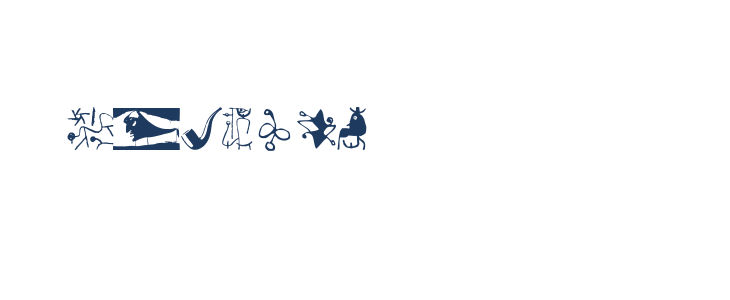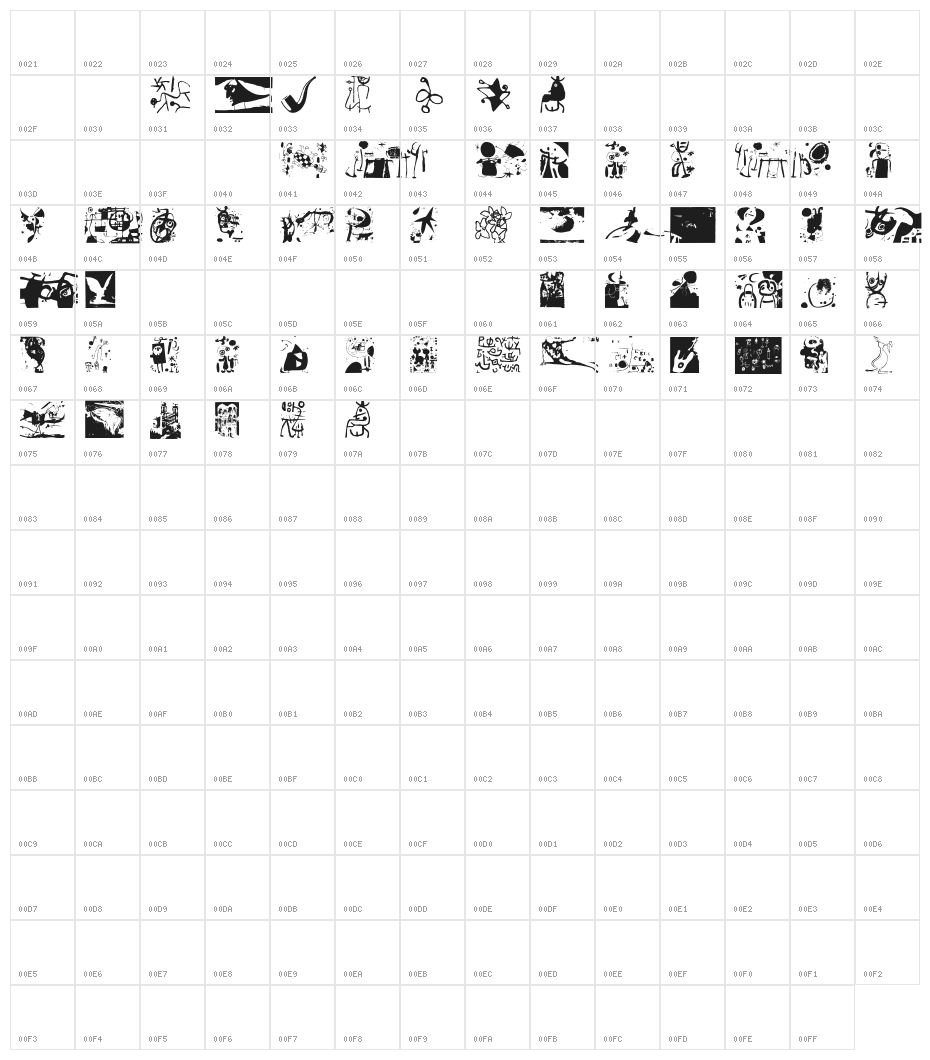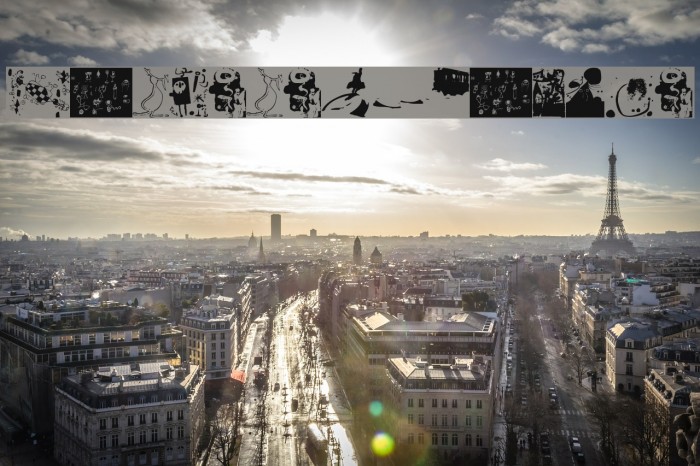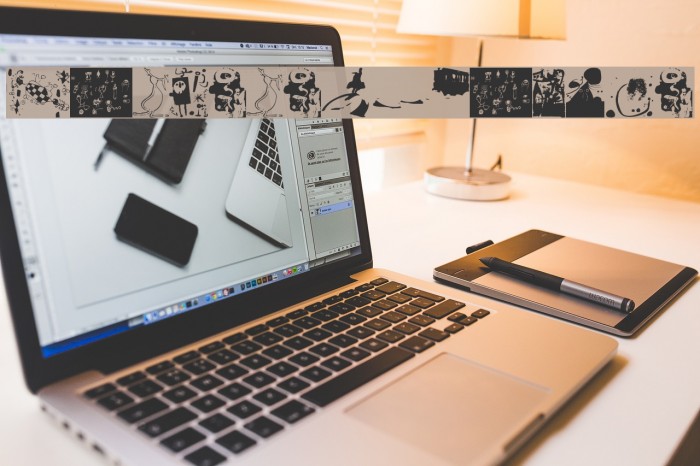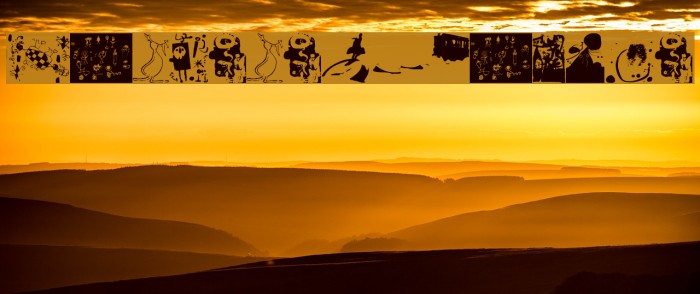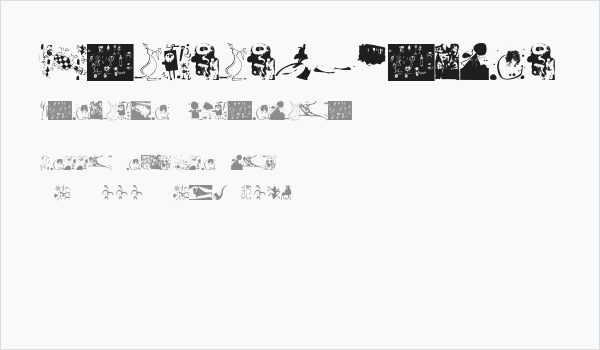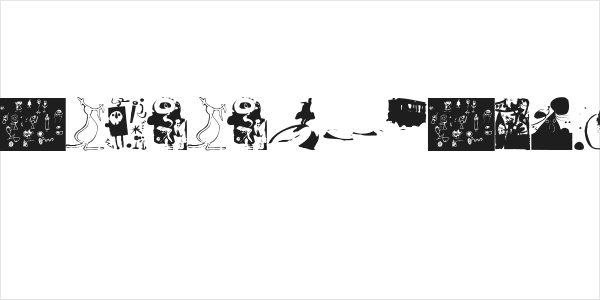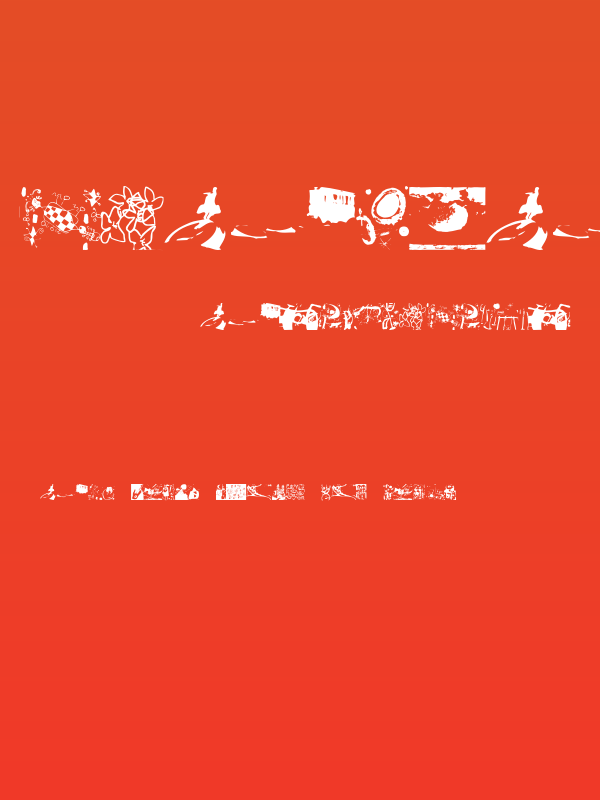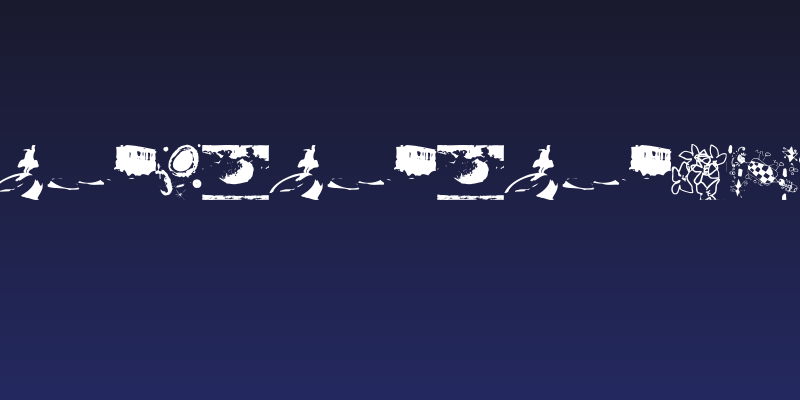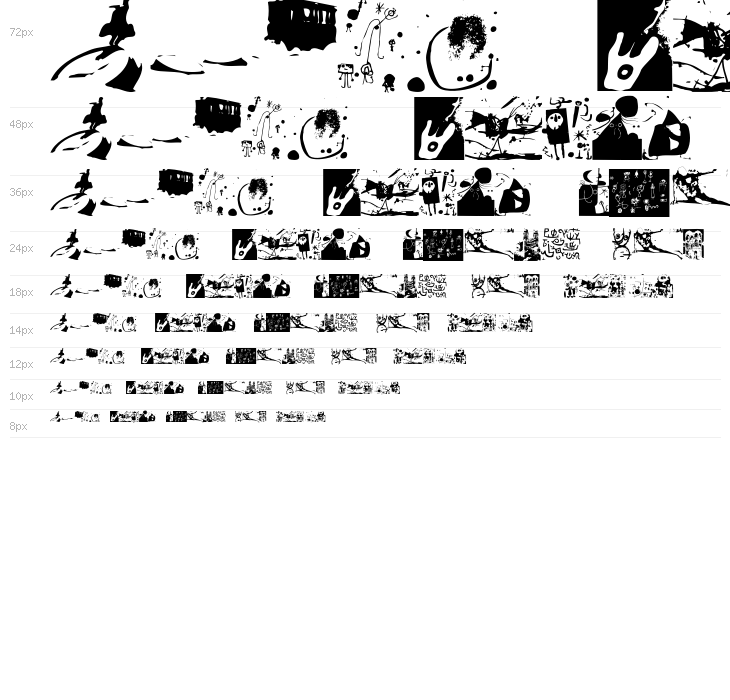
ArtistsTraces Font
ArtistsTraces Description
Highly decorative and abstract font featuring playful, hand-drawn illustrations and whimsical shapes instead of traditional letterforms. Each character is represented by a unique, artistic doodle, evoking a sense of spontaneity and creativity. The style is reminiscent of modern art or childlike sketches, with irregular lines and varying stroke thickness.
| Overall Style | Decorative, Artistic, Whimsical |
| Use Case | Logos, Posters, Artistic projects, Headlines |
| Proposed Projects | Art exhibitions, children's books, creative posters, album covers, avant-garde branding, event invitations. |